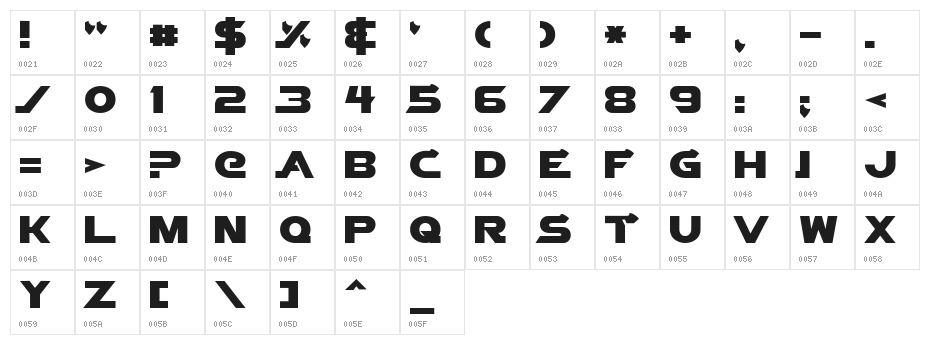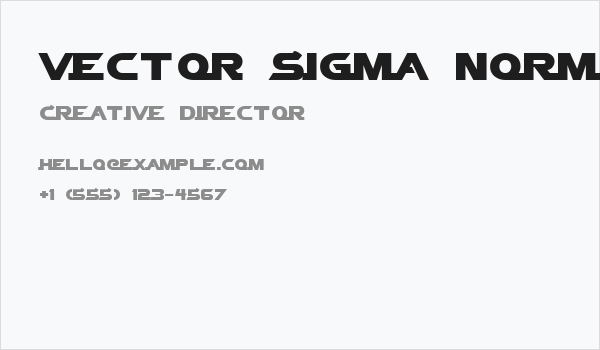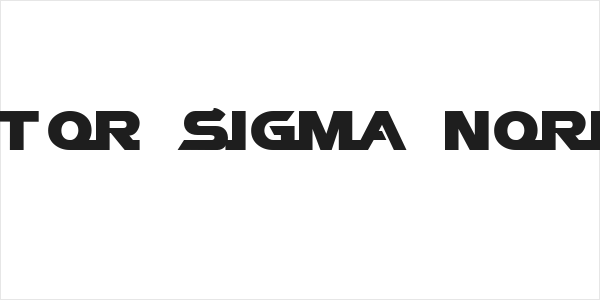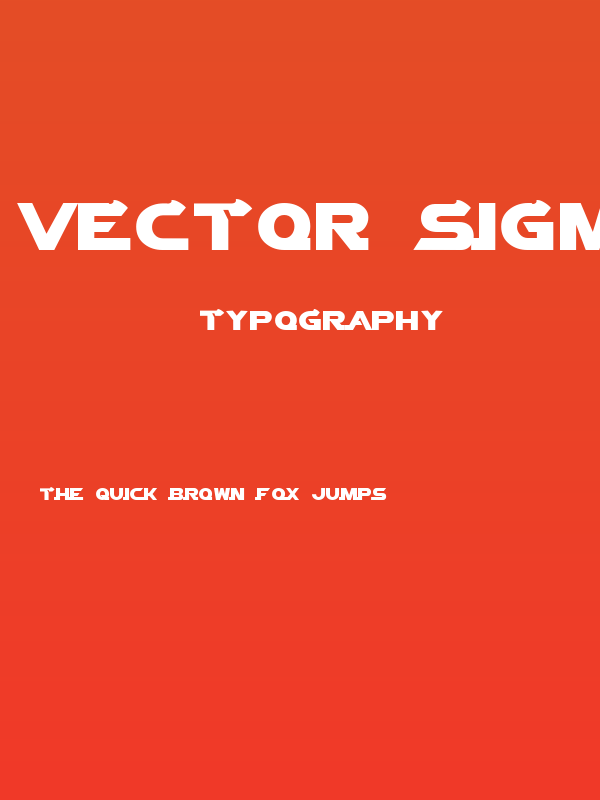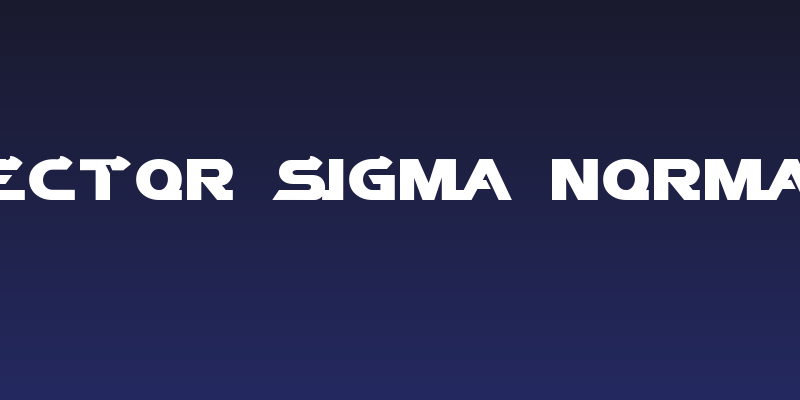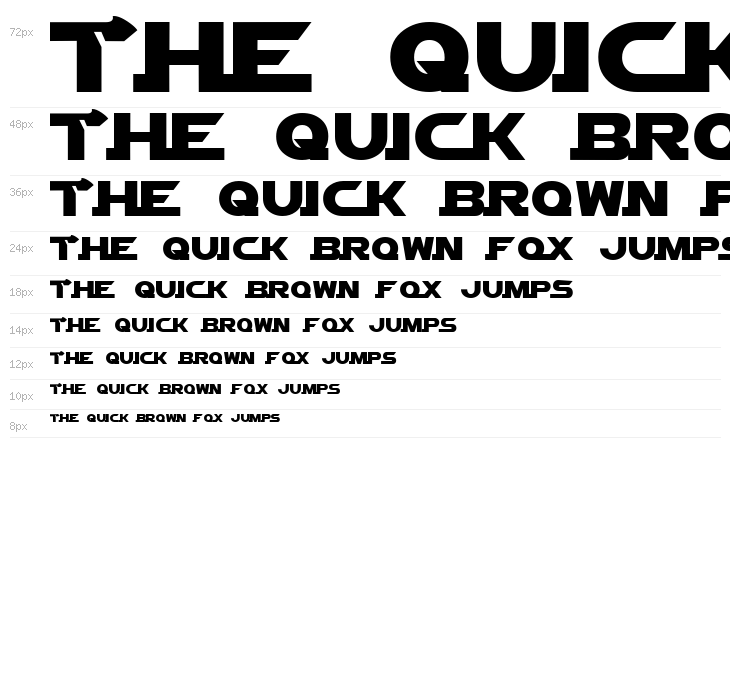
Vector Sigma Normal Font
Vector Sigma Normal Description
This font features a bold, geometric design with a futuristic flair. The characters are constructed with sharp angles and clean lines, giving it a modern and dynamic appearance. The uppercase letters are particularly striking, with unique cuts and slants that add a sense of movement and energy. The numbers and special characters maintain this aesthetic, ensuring consistency across all glyphs. The font's strong presence makes it ideal for attention-grabbing designs, while its uniformity ensures readability.
| Overall Style | Futuristic, Modern |
| Proposed Projects | Ideal for sci-fi themed posters, video game titles, technology branding, and modern logos. |